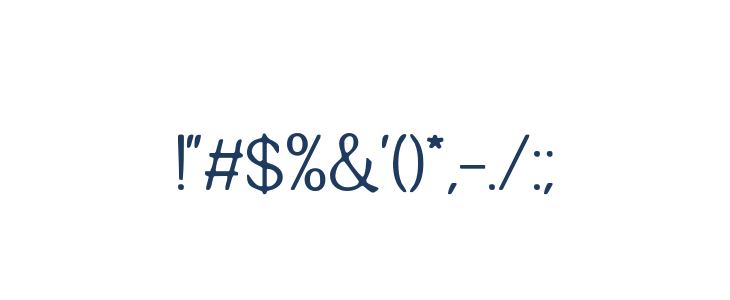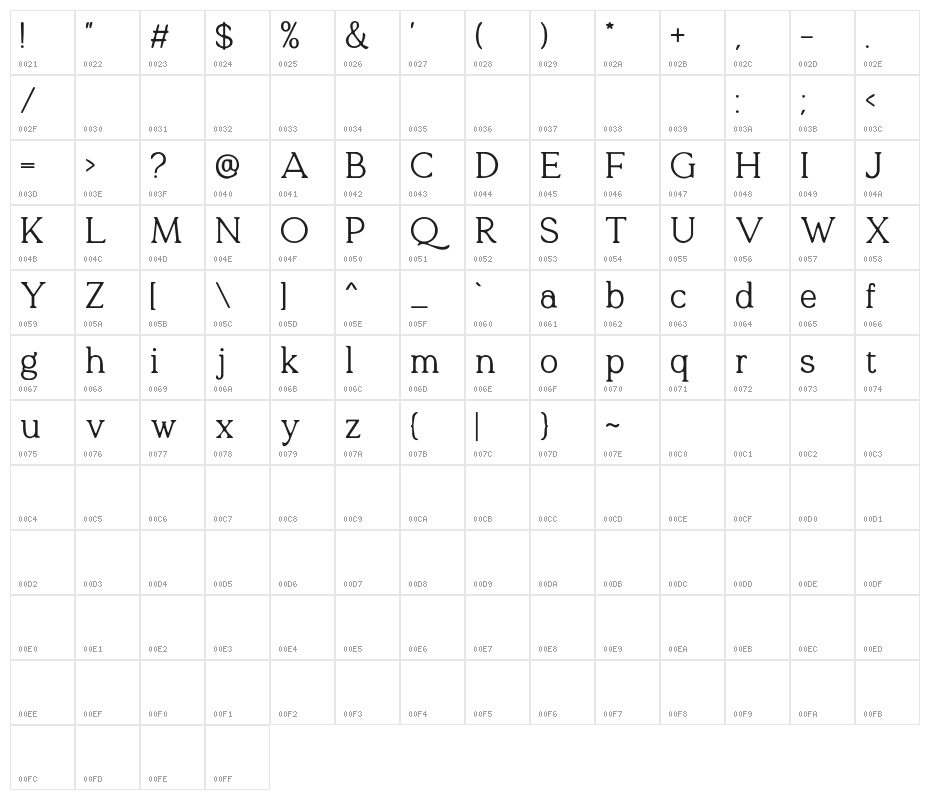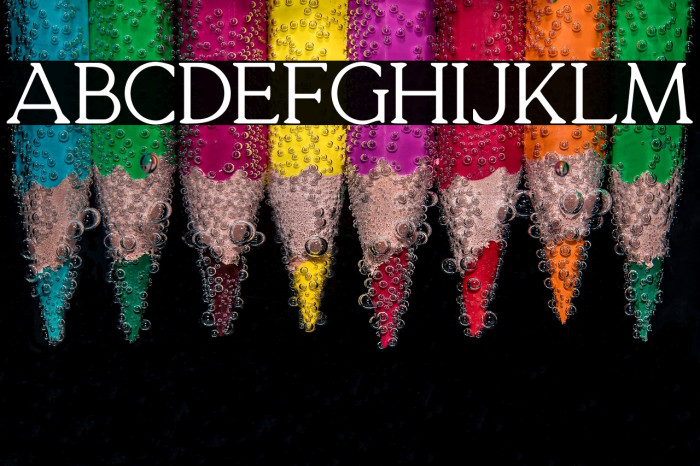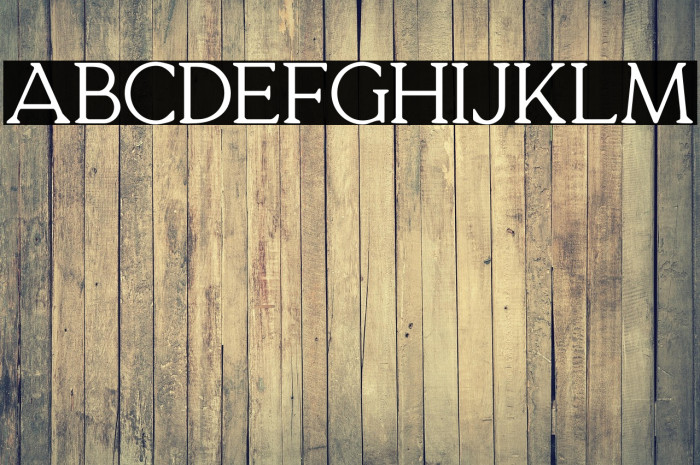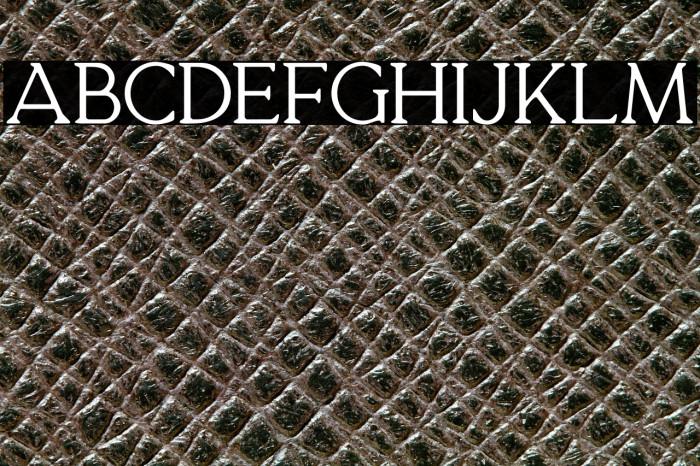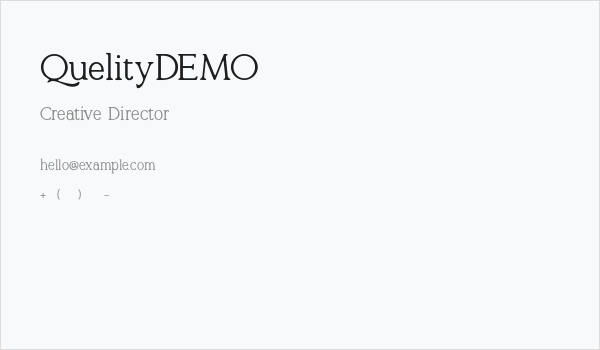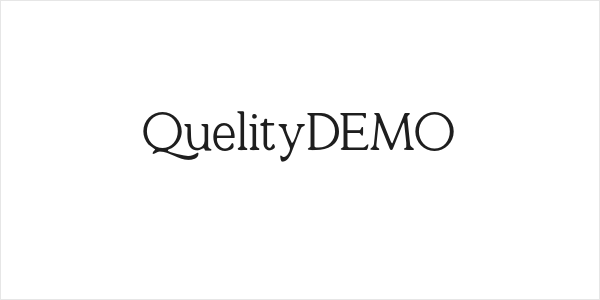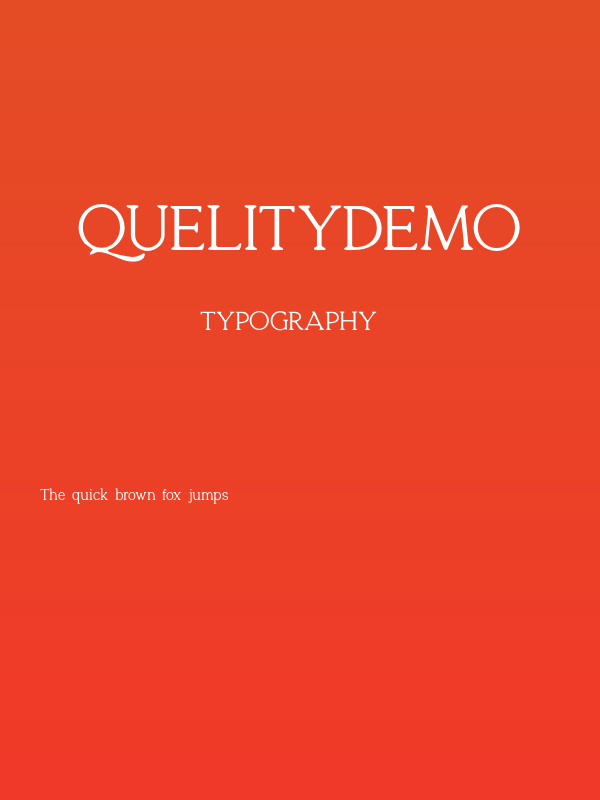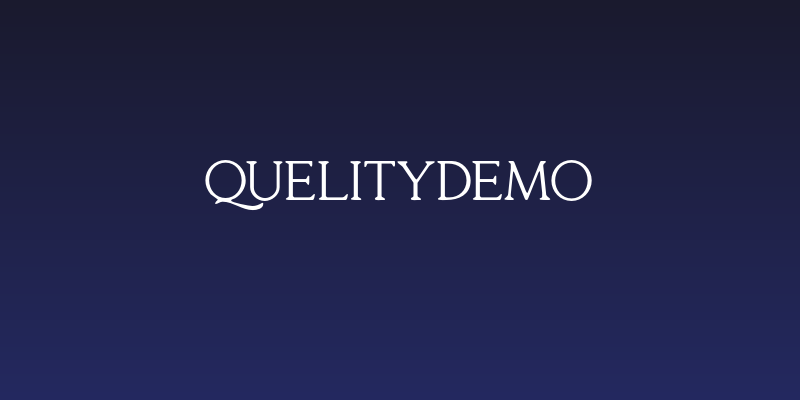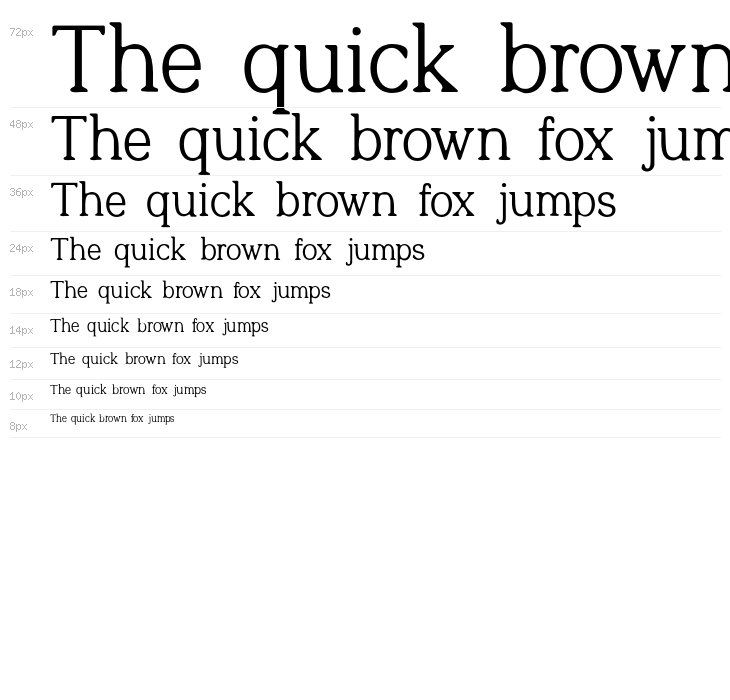
QuelityDEMO Font
QuelityDEMO Description
This font features a classic serif style with elegant and refined strokes. The uppercase letters are tall and stately, while the lowercase letters maintain a balanced and harmonious appearance. The serifs are pronounced, adding a touch of sophistication and tradition. The numbers are clear and legible, making them suitable for various applications. Special characters are well-designed, maintaining the overall aesthetic of the font. The consistent stroke width and moderate contrast give it a timeless and versatile appeal.
| Use Case | Body text, Headlines, Editorial design |
| Proposed Projects | Ideal for book typesetting, formal invitations, branding for luxury products, and editorial design. |